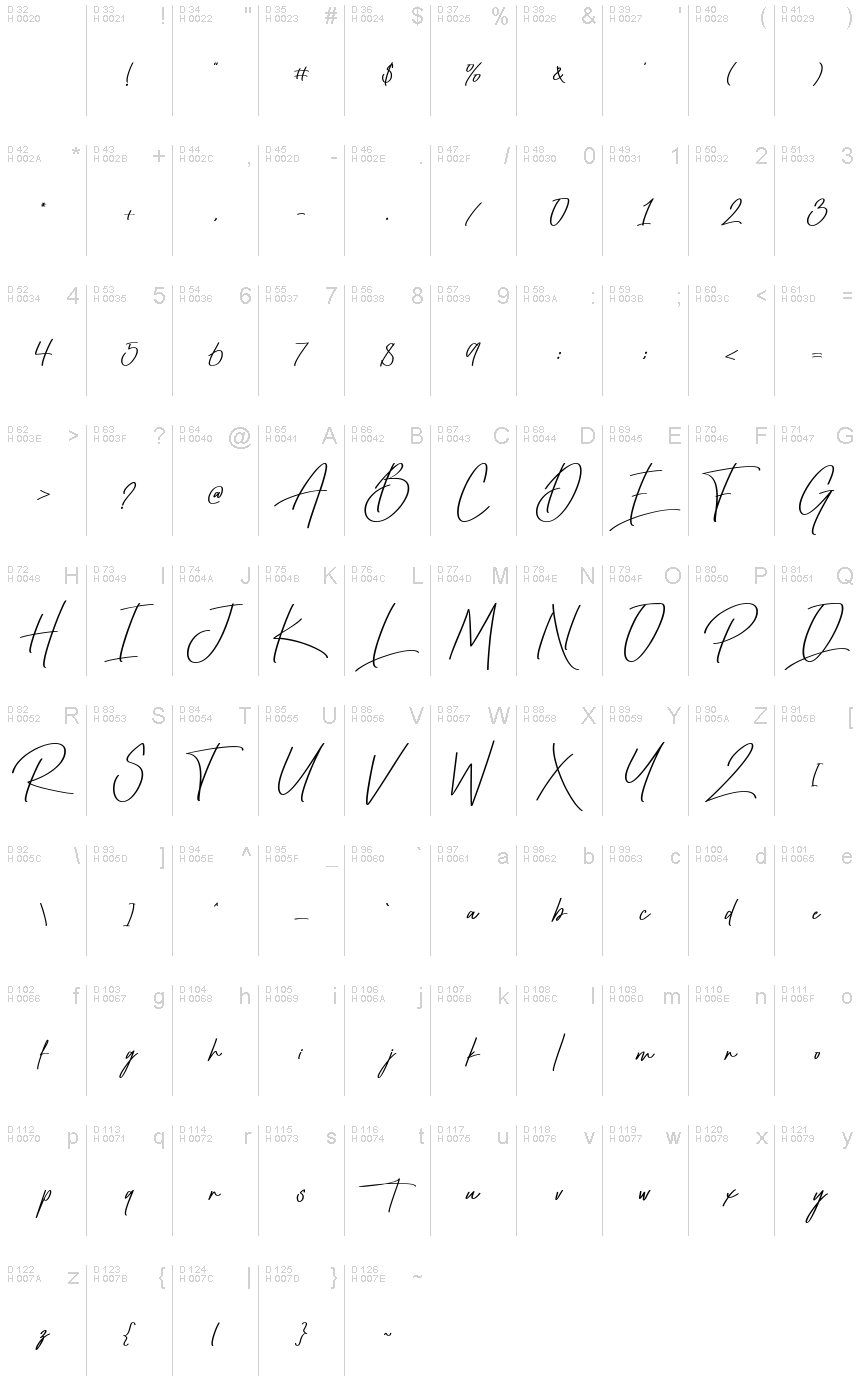
Enchant
Enchant, designed by Moove Studio, is a font that captures the essence of personal touch with its handwritten, signature style. Its extra-light weight exudes an air of elegance and subtlety, making it an exquisite choice for those seeking to imbue their projects with a sense of intimacy and finesse. The delicate and fluid strokes resemble the work of a skilled calligrapher, bringing warmth and character to any canvas.
This font's graceful appearance makes it ideal for upscale branding, sophisticated invitations, or any design space that requires a bespoke charm. Enchant’s aesthetic appeal lies in its ability to convey authenticity and sophistication simultaneously. Whether gracing the pages of a boutique’s lookbook or the stationary of an exclusive event, Enchant promises to add an enchanting narrative quality to creative endeavors across various mediums.